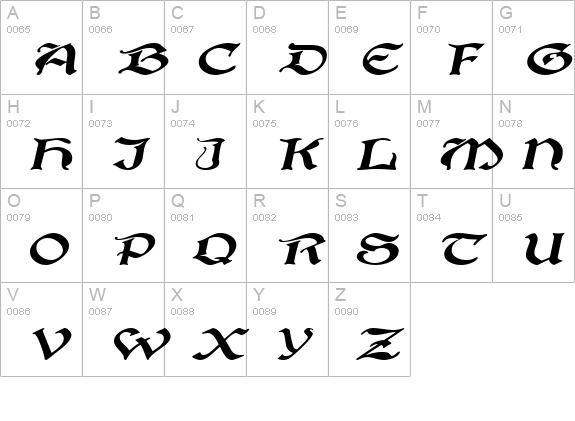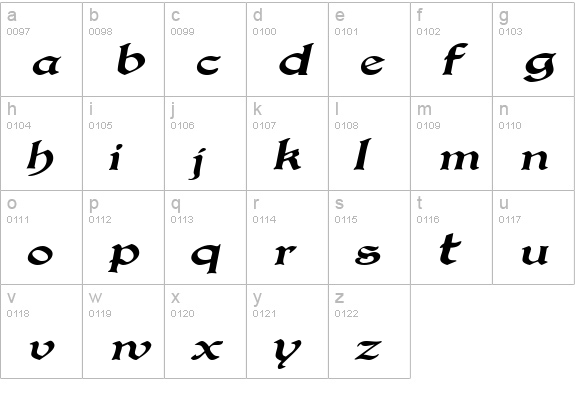
BucaneerSSK Italic Font Details
BucaneerSSK Italic is a distinctive, italic variant in the BucaneerSSK typeface family \xE2\x80\x94 well suited to design and typography projects.
BucaneerSSK Italic font is a stylish and dynamic typeface that exudes a sense of adventure and boldness. Its slanted letters convey a sense of movement and energy, making it a perfect choice for projects that require a touch of excitement and flair. The elegant curves and distinct angles of BucaneerSSK Italic give it a unique and eye-catching appearance that will make your designs stand out. What's even better is that this fantastic font is available for free download at FontsMarket.com. By offering this font for free, designers and creatives everywhere can access this high-quality typeface without any cost barriers. Whether you're working on a poster, flyer, logo, or any other design project, BucaneerSSK Italic is sure to add a touch of sophistication and creativity to your work. Don't miss out on the opportunity to enhance your designs with this exceptional font – download BucaneerSSK Italic today for free and take your projects to the next level.